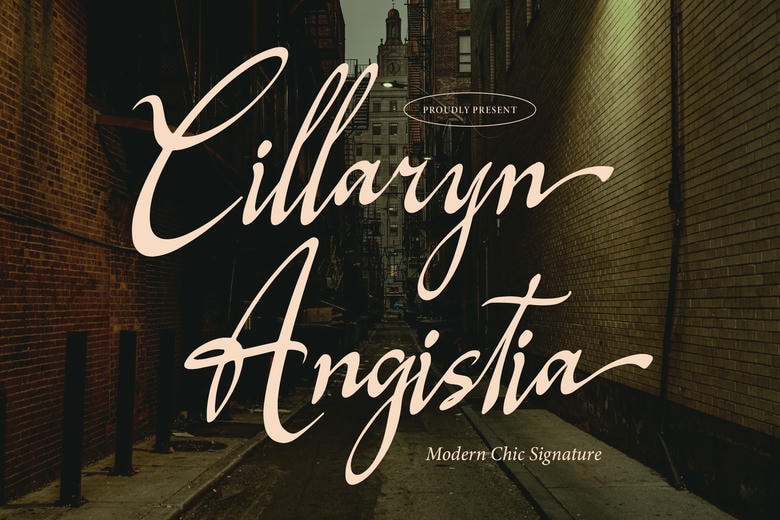
Cillaryn Angistia Font
Cillaryn Angistia is a unique all purpose signature font with a clean and smooth cutting edge appearance. With rounded corners and no jagged edges it can add a somewhat classy and friendly feel to designs such as logos, invites, or branding. It is simple and professional with a unique flair of fashionable, making it more elegant for most people to use.
Cillaryn Angistia Signature Script Font